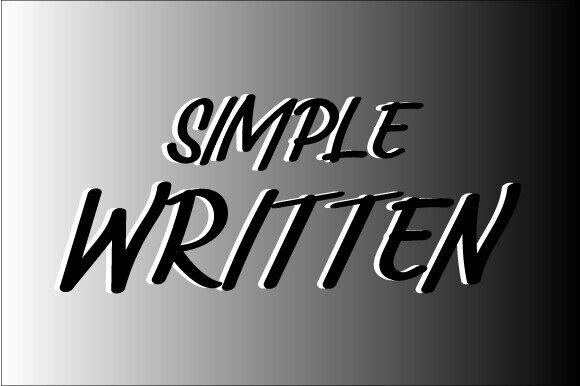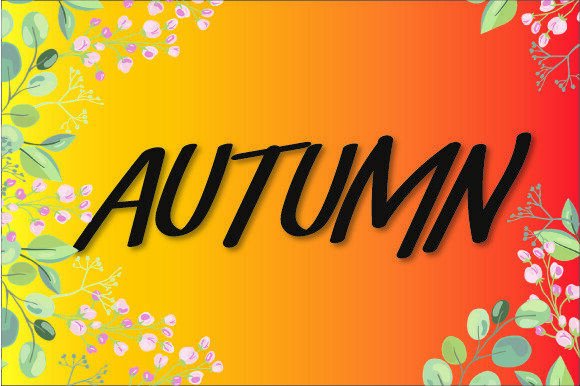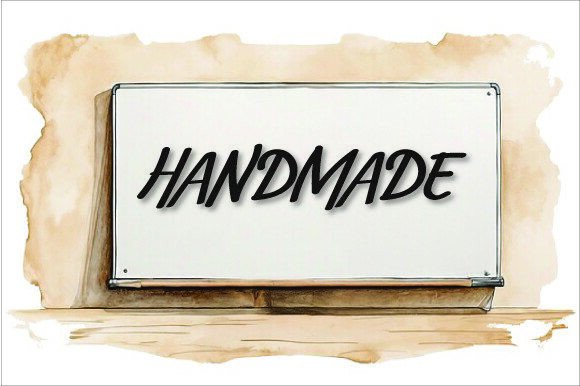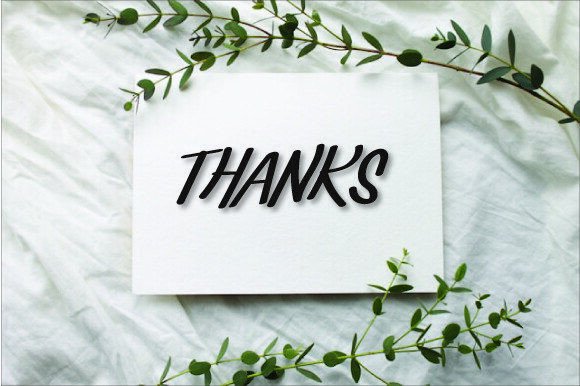
Introducing Creative Together Font: Your New Go-To Handwritten Companion
Are you tired of using the same old fonts for your crafts, digital designs, presentations, and greeting cards? Look no further! We’re excited to introduce you to Creative Together Font, a fun and friendly handwritten font that’s sure to become your favorite companion for all your creative endeavors.
What is Creative Together Font?
Creative Together Font is a beautifully designed handwritten font that’s perfect for adding a personal touch to your projects. Its fun and friendly vibe makes it ideal for a wide range of applications, from crafting and digital design to presentations and greeting cards.
Key Features of Creative Together Font
- Handwritten style: Creative Together Font boasts a lovely handwritten style that’s both elegant and approachable.
- Fun and friendly vibe: This font exudes a sense of playfulness and warmth, making it perfect for projects that require a personal touch.
- Versatile: Whether you’re working on a craft project, designing a digital product, creating a presentation, or making a greeting card, Creative Together Font is the perfect choice.
- Easy to read: The font is clear and easy to read, making it suitable for both digital and print applications.
Use Cases for Creative Together Font
So, how can you use Creative Together Font in your projects? Here are some ideas to get you started:
- Crafts: Add a personal touch to your craft projects, such as scrapbooking, card making, and journaling.
- Digital design: Use Creative Together Font in your digital designs, such as social media graphics, blog posts, and website headers.
- Presentations: Add some personality to your presentations with this fun and friendly font.
- Greeting cards: Create beautiful and personalized greeting cards for special occasions.
Why Choose Creative Together Font?
With so many fonts available, why choose Creative Together Font? Here are just a few reasons:
- Unique style: Creative Together Font has a unique and distinctive style that’s sure to set your projects apart.
- High-quality design: The font is designed to high standards, ensuring that it looks great in all applications.
Tips for Using Creative Together Font
Here are some tips for getting the most out of Creative Together Font:
- Experiment with colors: Try pairing Creative Together Font with different colors to add some extra personality to your projects.
- Mix and match: Combine Creative Together Font with other fonts to create a unique and interesting look.
- Use it consistently: Use Creative Together Font consistently throughout your project to create a cohesive look.
In conclusion, Creative Together Font is a fun and friendly handwritten font that’s perfect for adding a personal touch to your projects. With its unique style, ease of use, and high-quality design, it’s sure to become your go-to font for all your creative endeavors. So why wait? Download Creative Together Font today and start creating!